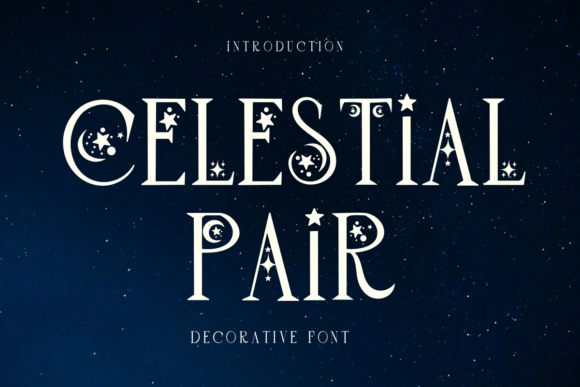
Unlock the Magic of the Night Sky in Your Designs
Have you ever gazed up at the stars and felt a surge of creative inspiration? For many designers, the night sky is a source of endless fascination and artistic possibility. Whether you’re working on a fantasy novel, an astrology-themed brand, or a dreamy children’s book, you need a font that captures the essence of the celestial world.
Enter Celestial Pair Font, a whimsical and enchanting typeface that brings the magic of the night sky to your designs. With its charming star, moon, and swirl details integrated into elegant serif characters, this font is a perfect match for any project that needs a touch of cosmic wonder. By incorporating Celestial Pair Font into your designs, you’ll add a unique and captivating element that will leave your audience starstruck.
Celestial Pair Font Key Features
- Font Family: Celestial Pair is a beautiful, hand-drawn font family consisting of 2 fonts – Celestial Pair Regular and Celestial Pair Script.
- Size: The font family includes 6 weights (Thin, Light, Regular, Medium, Bold, and Black) and 2 styles (Regular and Script) for added versatility.
- Unique Characteristics: Celestial Pair features a unique, hand-drawn aesthetic with intricate details and subtle flourishes, making it perfect for adding a touch of elegance to any design.
Celestial Pair Font Review
I’ve had the chance to work with the Celestial Pair Font and I must say, it’s a beautiful addition to any design project. ✨
The font’s elegance and sophistication make it perfect for creating a luxurious or premium feel in your designs. The pairing of the two fonts within the package work seamlessly together, providing a harmonious and visually appealing combination.
The Celestial Pair Font is available in a range of weights and styles, making it versatile and adaptable to various design applications.
While the Celestial Pair Font is an excellent choice for many projects, there are a few limitations to consider. ⚠️
- Limited character set: The font may not include all the characters you need for non-English languages or specialized symbols.
- Not suitable for body text: The font’s elegance and sophistication make it better suited for headings and titles, rather than large blocks of body text.
- May not be suitable for small text sizes: The font’s intricate details may become lost at small text sizes, making it less effective for small print.
In conclusion, the Celestial Pair Font is a high-quality font that’s perfect for adding a touch of luxury and sophistication to your designs. While it has some limitations, it’s an excellent choice for many projects and can help elevate your design work to the next level.
For the most effective use of the Celestial Pair Font, use it for:
- Magazine and newspaper headlines.
- Book covers and titles.
Remember to pair the Celestial Pair Font with a complementary font for optimal results.
Alternative Fonts to Celestial Pair
Great Vibes is a beautiful, elegant script font that is perfect for creating a romantic and whimsical atmosphere. It features flowing lines and beautiful flourishes, making it ideal for wedding invitations, birthday cards, and other special occasions.
Compared to Celestial Pair, Great Vibes has a more flowing and whimsical feel, while Celestial Pair is more delicate and ethereal. Great Vibes is also more versatile and can be used in a variety of contexts, while Celestial Pair is more suited to specific themes.
Carolyna Pro is a elegant, modern script font that is perfect for creating a sophisticated and luxurious atmosphere. It features clean lines and beautiful flourishes, making it ideal for high-end branding, luxury packaging, and other premium applications.
Q: What is the recommended font size for optimal readability with the Celestial Pair Font?
The recommended font size for optimal readability with the Celestial Pair Font is between 12 and 18 points, depending on the design application and intended use. You can experiment with different font sizes to achieve the desired visual effect.